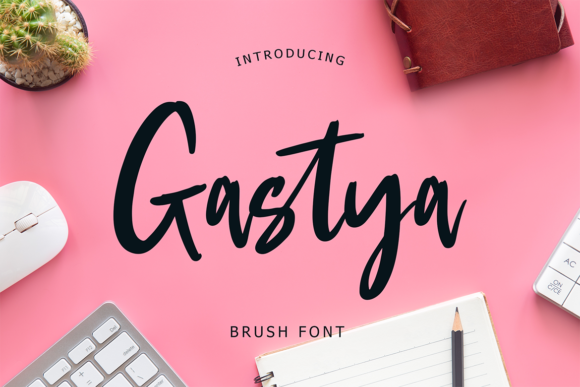
Unleash your creativity with Gastya Font, the captivating handwritten font that dances across your designs with its enchanting brush style. Experience the magic as your words transform into vibrant expressions, radiating with a personality that speaks volumes.
Gastya's playful strokes and elegant curves bring a touch of whimsy to your projects, adding a dash of delight to your digital creations. Its meticulously crafted characters exude a sense of authenticity, making your designs stand out from the crowd.
Dive into a world of endless possibilities with Gastya. Whether you're crafting logos that demand attention, designing social media posts that captivate your audience, or creating invitations that leave a lasting impression, Gastya is your perfect companion. Its versatility knows no bounds, making it the ideal choice for a wide array of projects.
With Gastya, you'll discover the joy of effortless text wrapping. Its carefully designed characters seamlessly flow together, creating a cohesive and visually appealing look that enhances the overall impact of your designs. Let Gastya's natural charm and effortless readability elevate your projects to new heights.
Don't settle for ordinary fonts that blend into the background. Embrace the extraordinary with Gastya, the font that ignites your imagination and captivates your audience. Join the creative revolution and unlock a world of boundless possibilities.